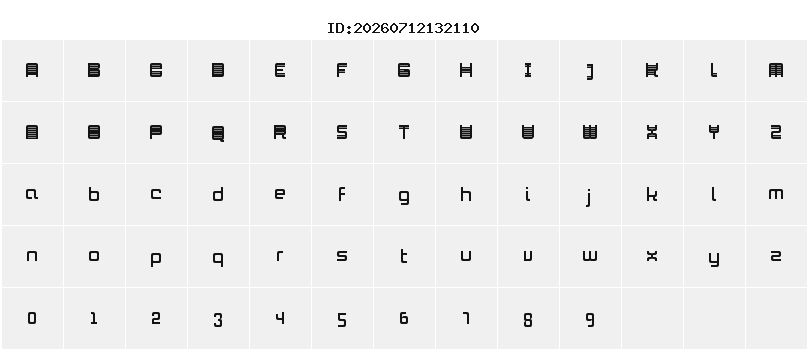
• Font Name: MAMBO
• Full Font Name: MAMBO Regular
• Copyright: Copyright stigma 2013 ‚ÄúMAMBO‚Äù is based on ‚ÄúEerostyle‚Äù by ‚ÄúStephen Coles‚Äù (http://fontstruct.com/fontstructors/stewf)
• Designer: stigma
• Description: ‚ÄúMAMBO‚Äù was built with FontStruct ‚ÄúMAMBO‚Äù is based on ‚ÄúEerostyle‚Äù by ‚ÄúStephen Coles‚Äù (http://fontstruct.com/fontstructors/stewf)
About MAMBO.ttf
MAMBO.ttf is a modern, elegant sans-serif font designed for ultimate readability and visual harmony. Perfect for branding, headlines, web design, and print materials.